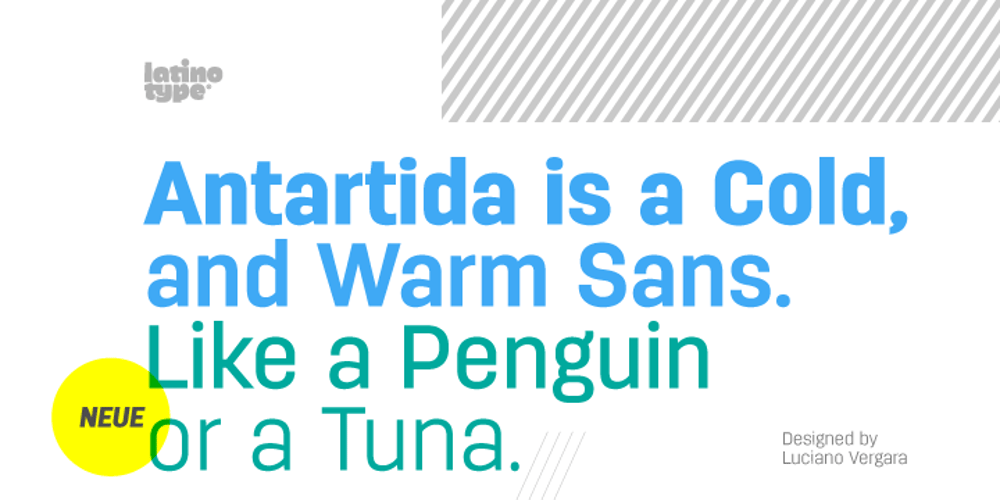
Antartida
Antartida font
Antartida Font Family was designed by Luciano Vergara and published by Latinotype. Antartida contains 8 styles and family package options. Antartida is a sans serif typeface, while it is monolinear simple structure give it a kind of neutral feeling, is functional, clean and minimal. Is a family of 8 fonts, 4 weights and italics. This typeface contains alternate glyphs that help to emphasize text or headlines. You can also see AntartidaEssential, a simpler and less expensive version.